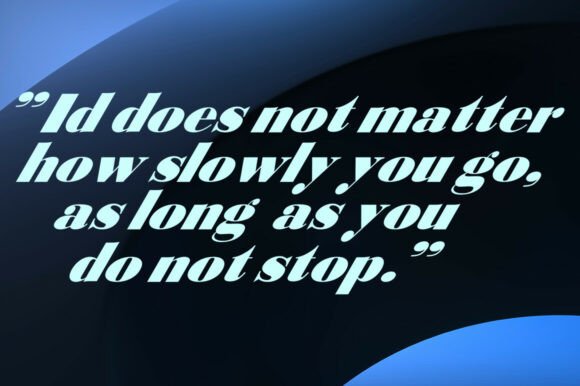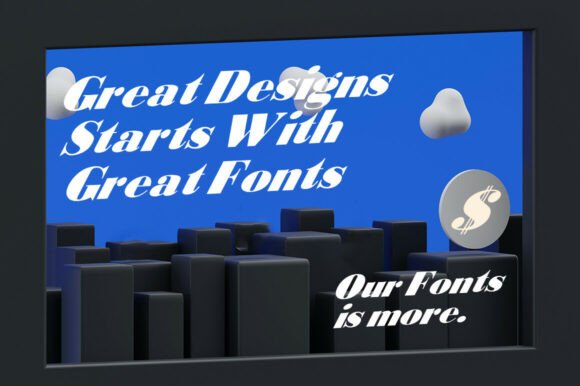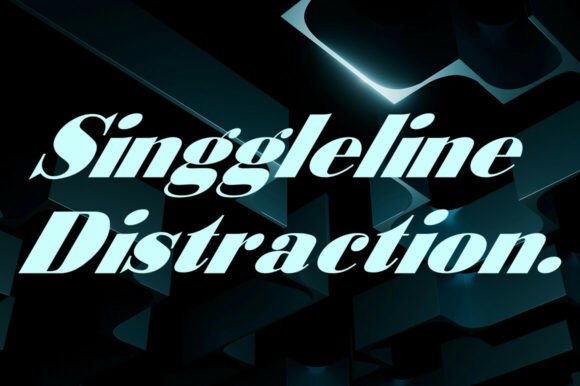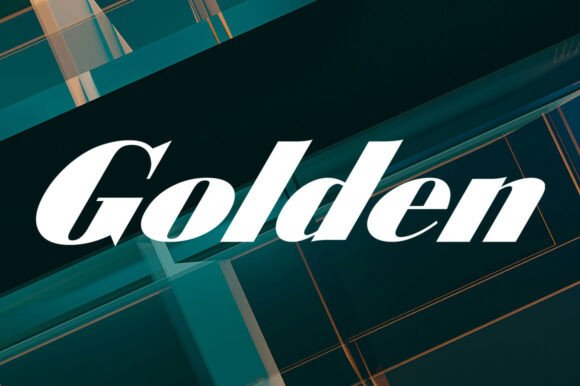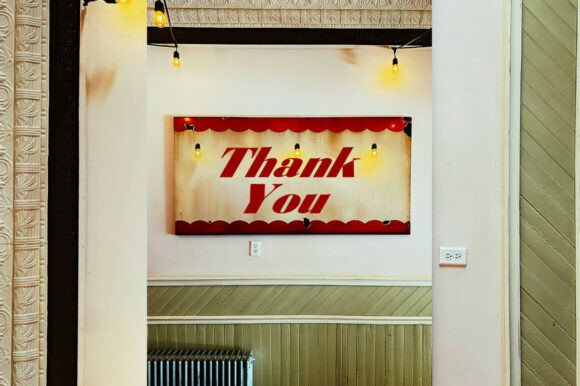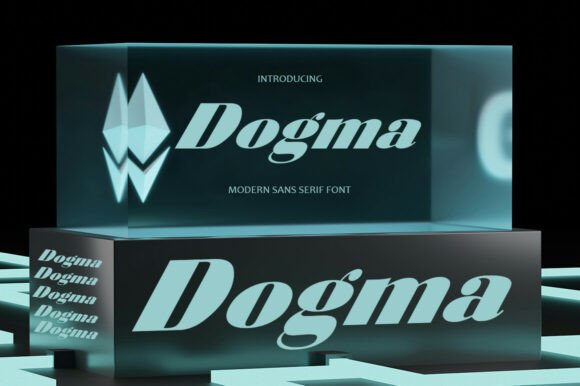
Introducing Dogma Font: The Epitome of Modern Serif Elegance
In the realm of typography, a font can make or break the visual identity of a project. For designers and crafters seeking a typeface that exudes professionalism, style, and versatility, Dogma Font emerges as a compelling choice. This bold and modern serif font is characterized by its strong italic style, clean lines, sharp edges, and a contemporary design that sets it apart while ensuring excellent readability.
The Distinctive Features of Dogma Font
Dogma Font is distinguished by its unique blend of traditional serif elements and modern flair. Its bold and modern serif design gives it an authoritative presence, making it ideal for projects that demand a strong visual statement. The strong italic style adds a dynamic sense of motion and elegance, allowing Dogma to adapt seamlessly to a variety of design contexts.
The clean lines and sharp edges of Dogma contribute to its sleek and sophisticated appearance. These features not only enhance the font’s aesthetic appeal but also improve its legibility across different mediums, from digital screens to print materials. Whether you’re crafting a logo, designing a poster, or developing a brand’s visual identity, Dogma’s clarity and precision make it an excellent choice.
Versatility and Application
One of Dogma’s most significant advantages is its versatility. Its sleek and contemporary design makes it suitable for a wide range of applications, including:
- Logos and Branding: Dogma’s bold and elegant appearance makes it perfect for creating memorable logos and cohesive brand identities.
- Posters and Advertising: The font’s strong presence and readability ensure that your message stands out, capturing the audience’s attention effectively.
- Packaging: Dogma adds a touch of sophistication and professionalism to product packaging, enhancing the overall brand experience.
- Editorial Use: For magazines, newspapers, and digital publications, Dogma provides a stylish yet readable solution for headings and body text.
This versatility across both digital and print designs makes Dogma an invaluable asset for designers who work across multiple platforms and mediums.
Why Choose Dogma Font?
Choosing Dogma Font for your design projects comes with several benefits:
- Professionalism: Dogma’s modern and clean design lends a professional edge to any project.
- Elegance: The font’s italic style and serif details add an elegant touch, suitable for high-end branding and editorial content.
- Readability: Despite its bold appearance, Dogma maintains excellent readability, ensuring your message is conveyed clearly.
- Adaptability: Its versatility across digital and print mediums makes Dogma a flexible choice for a wide range of design needs.
Dogma Font stands out in the world of typography with its bold and modern serif design, strong italic style, and exceptional readability. Its versatility and elegant appearance make it an ideal choice for designers and crafters looking to elevate their projects with a professional and stylish edge. Whether you’re working on logos, branding, posters, packaging, or editorial content, Dogma Font is a reliable and stylish solution that can adapt to your creative needs.
By incorporating Dogma into your design toolkit, you’ll be equipped to create visually compelling and effective designs that resonate with your audience. Experience the impact of Dogma Font on your next project and discover how this modern serif font can bring your creative visions to life.